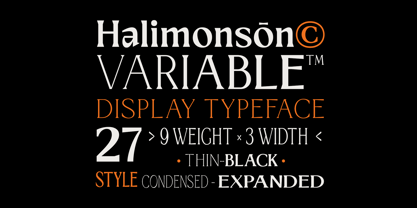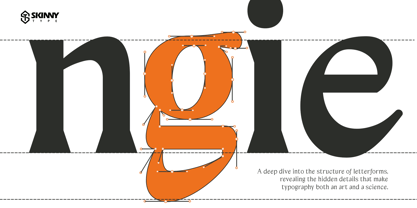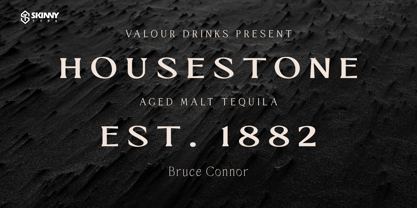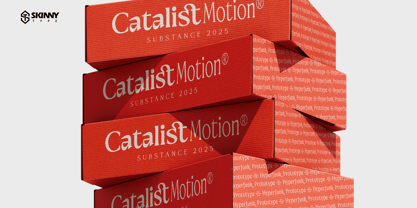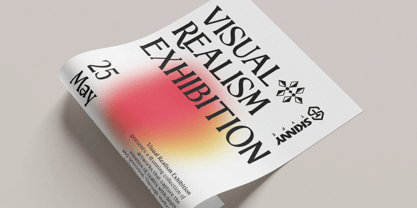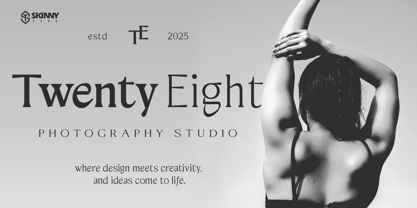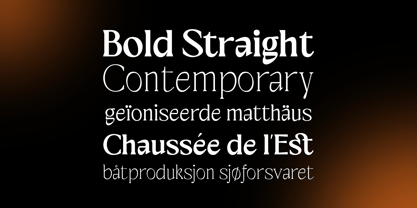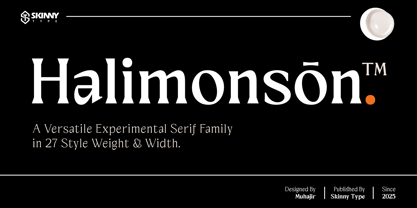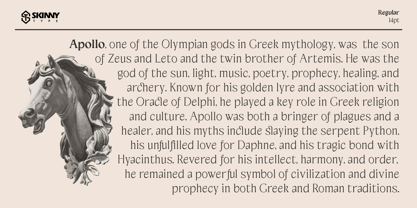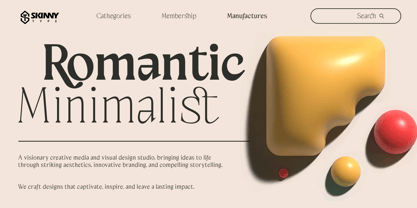
Halimonson
by Skinny Type
The Halimonson Font Family was designed by Muhajir and published by Skinny Type. Halimonson contains 27 styles and family package options.
Halimonson™ is a sophisticated serif typeface that blends classic elegance with contemporary experimental design. Crafted with precision, this type family offers 27 styles in various weights and widths, making it a versatile choice for branding, editorial layouts, and high-end typography.
With its bold yet refined letterforms, Halimonson™ stands out through its contrasting strokes, unique serifs, and subtle curvature, creating a balance between tradition and modernity. The inclusion of experimental details makes it suitable for luxury branding, book design, packaging, and high-end digital experiences.
Published by Skinny Type and designed in 2025, Halimonson™ is an exceptional choice for designers seeking a typeface that exudes sophistication, creativity, and adaptability across different applications.